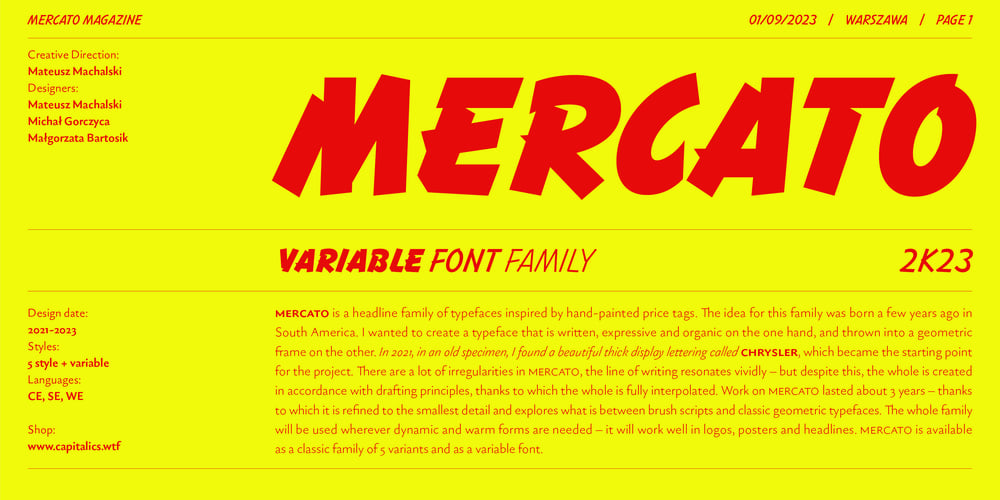
Mercato VF Font Family was designed by Mateusz Machalski and published by Machalski. Mercato VF contains 6 styles and family package options. MERCATO is a headline family of typefaces inspired by hand-painted price tags. The idea for this family was born a few years ago in South America. I wanted to create a typeface that is written, expressive and organic on the one hand, and thrown into a geometric frame on the other. Co-designers: Karol Mularczyk & Małgorzata Bartosik.